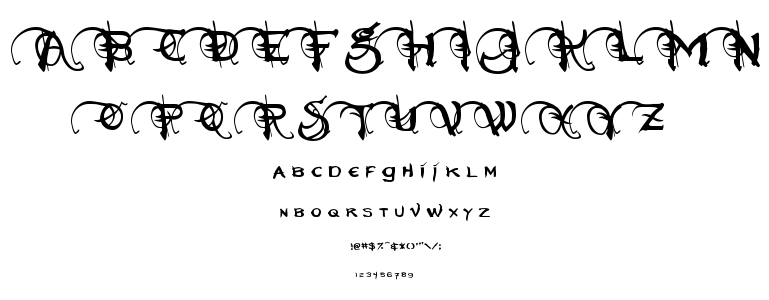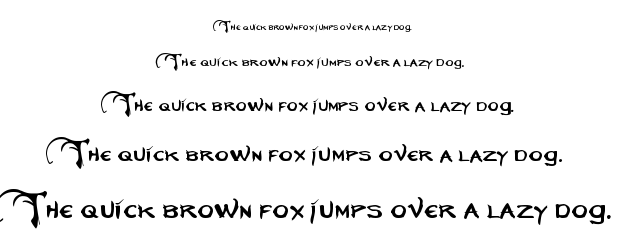
Based on the logo of the popular “Neverwinter Nights” computer game from Bioware (and has since become the official font!) This is a maintenance update with some error-corrections.